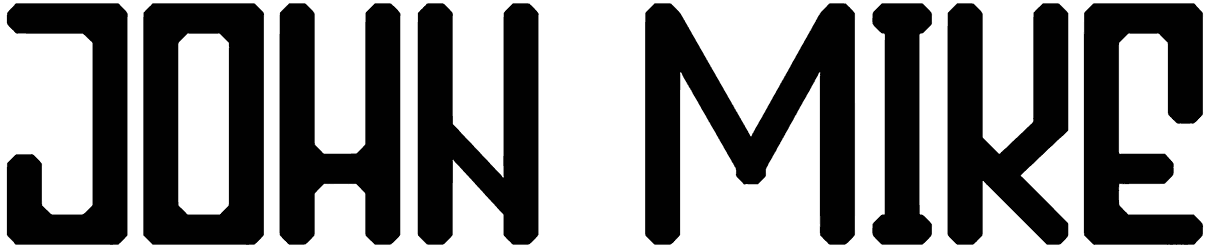
John Mike Font
With perfect lettering, you can make the kind of nice impression that is not going to be forgotten, and this tech font can perfectly do it. John Mike is limited to capitals, but having three versions can cover the lack of lowercase, numbers, and punctuation. If you want to see the final draft, test it and engage your viewers.